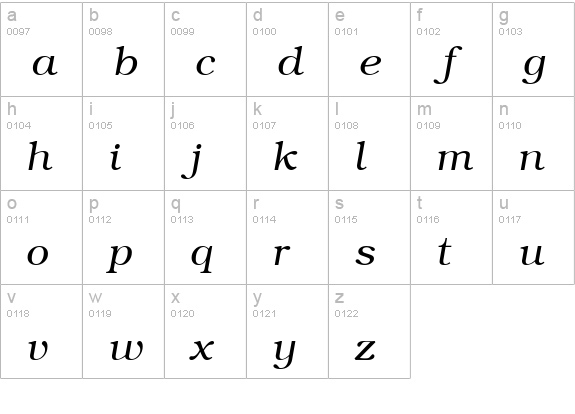
BookmanCTT Italic is a distinctive, italic variant in the BookmanCTT typeface family \xE2\x80\x94 well suited to design and typography projects.
BookmanCTT Italic font is a classic and elegant typeface that exudes sophistication and charm. Its slanted italic style adds a touch of flair to any text, making it perfect for projects that require a touch of sophistication. The sleek and timeless design of BookmanCTT Italic font makes it versatile for various uses, from formal invitations to stylish marketing materials. What's even better is that BookmanCTT Italic font is available for free download at FontsMarket.com. This means you can easily access and use this exquisite font in your projects without any cost. Don't miss the opportunity to enhance your designs with the beauty and grace of BookmanCTT Italic font, now just a download away at FontsMarket.com.